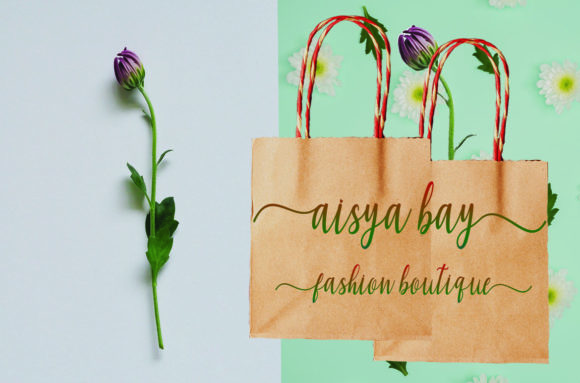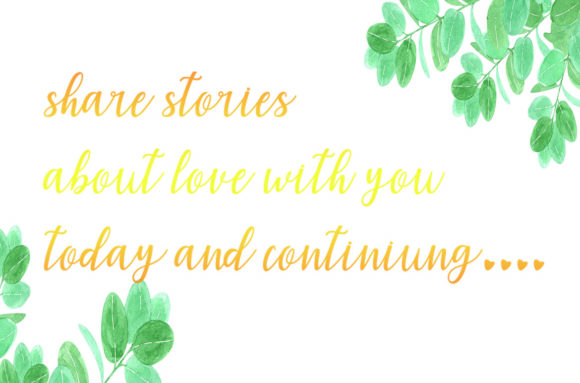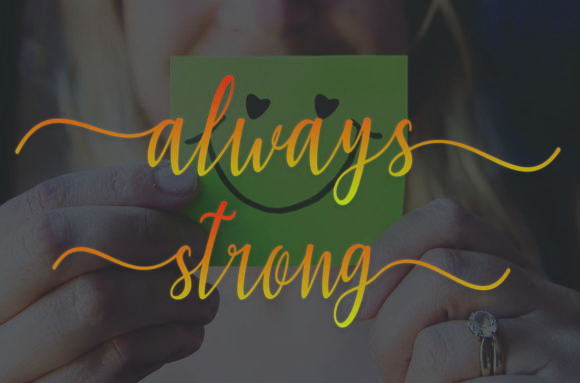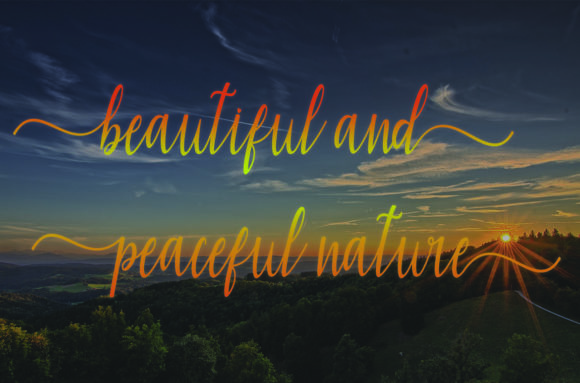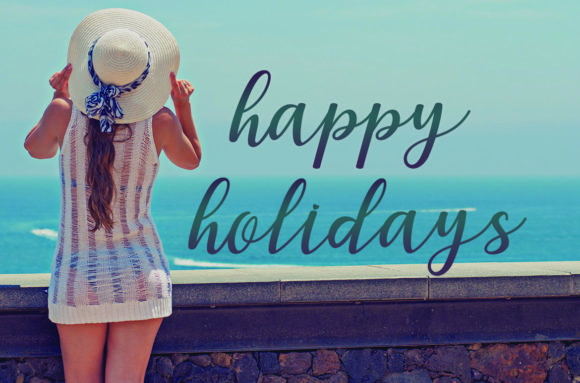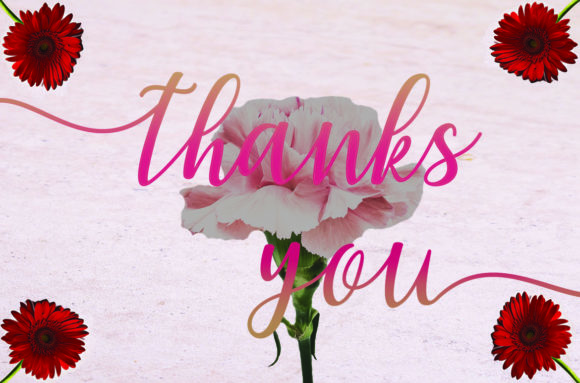
Discover the Amira Font: A Cute and Casual Handwritten Script
Are you on the hunt for a font that can add a touch of warmth and personality to your designs? Look no further than the Amira Font! This adorable handwritten script is perfect for designers, crafters, and DIY enthusiasts who want to create beautiful and eye-catching projects. In this article, we’ll dive into the features and benefits of the Amira Font, and explore how it can elevate your creative endeavors.
A Friendly and Versatile Font
Amira is a cute and casual handwritten font that exudes a friendly and approachable feel. Its gorgeous swashes and ligatures make it incredibly versatile, suitable for a wide range of design applications. Whether you’re creating social media graphics, crafting calligraphy scripts, or designing DIY projects, Amira is the perfect companion. Its unique charm and character will turn any creative idea into a true piece of art!
One of the standout features of the Amira Font is its PUA (Private Use Area) encoding. This means that you can access all the amazing glyphs and swashes with ease, without having to worry about complicated font editing or configuration. With PUA encoding, you can simply select the glyphs you want to use and incorporate them into your designs. This feature makes Amira incredibly user-friendly, even for those who are new to font design.
Special Features Galore
The Amira Font is packed with special features that will take your designs to the next level. Some of the notable features include:
- Alternate glyphs: Amira offers a range of alternate glyphs that allow you to customize your text and add a personal touch.
- Ligatures: The font features beautiful ligatures that connect letters and create a flowing, handwritten look.
- Swashes: Amira’s gorgeous swashes add a touch of elegance and sophistication to your designs.
Amira is an excellent choice for designers and crafters who want to add a personal touch to their projects. Here are some ways you can use Amira:
- Instagram graphics: Create stunning social media graphics with Amira’s playful and friendly vibe.
- Calligraphy scripts: Use Amira as a base for your calligraphy scripts and add a touch of elegance to your DIY projects.
- DIY crafts: Amira is perfect for crafting, scrapbooking, and other paper crafts.
- Branding and packaging: Use Amira to create custom branding and packaging that stands out from the crowd.
Tips and Tricks for Using Amira
To get the most out of the Amira Font, here are some tips and tricks to keep in mind:
- Experiment with different glyphs and swashes to find the perfect combination for your design.
- Use Amira in combination with other fonts to create a unique and eye-catching look.
- Don’t be afraid to get creative and try out new and innovative design ideas.
In conclusion, the Amira Font is a versatile and user-friendly script that is perfect for designers, crafters, and DIY enthusiasts. With its gorgeous swashes, ligatures, and special features, Amira is sure to elevate your creative projects and add a touch of warmth and personality. Whether you’re creating social media graphics, calligraphy scripts, or DIY crafts, Amira is the perfect companion. So why wait? Download Amira today and start creating beautiful and eye-catching designs!